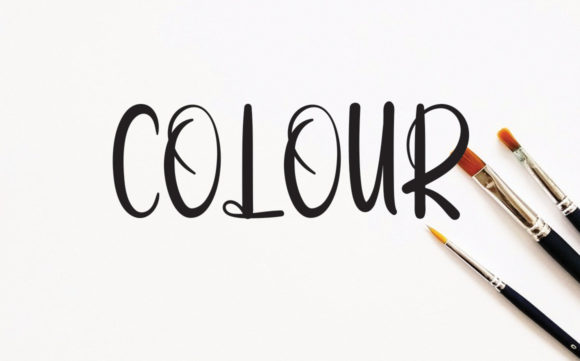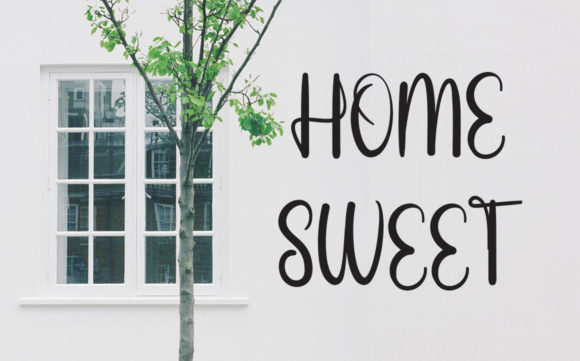
Planner Font
db-ku.com - Script & Handwritten -- Planner is a beautiful and flowing handwritten font. Use it for wall displays, wedding invitations, social media post logos,